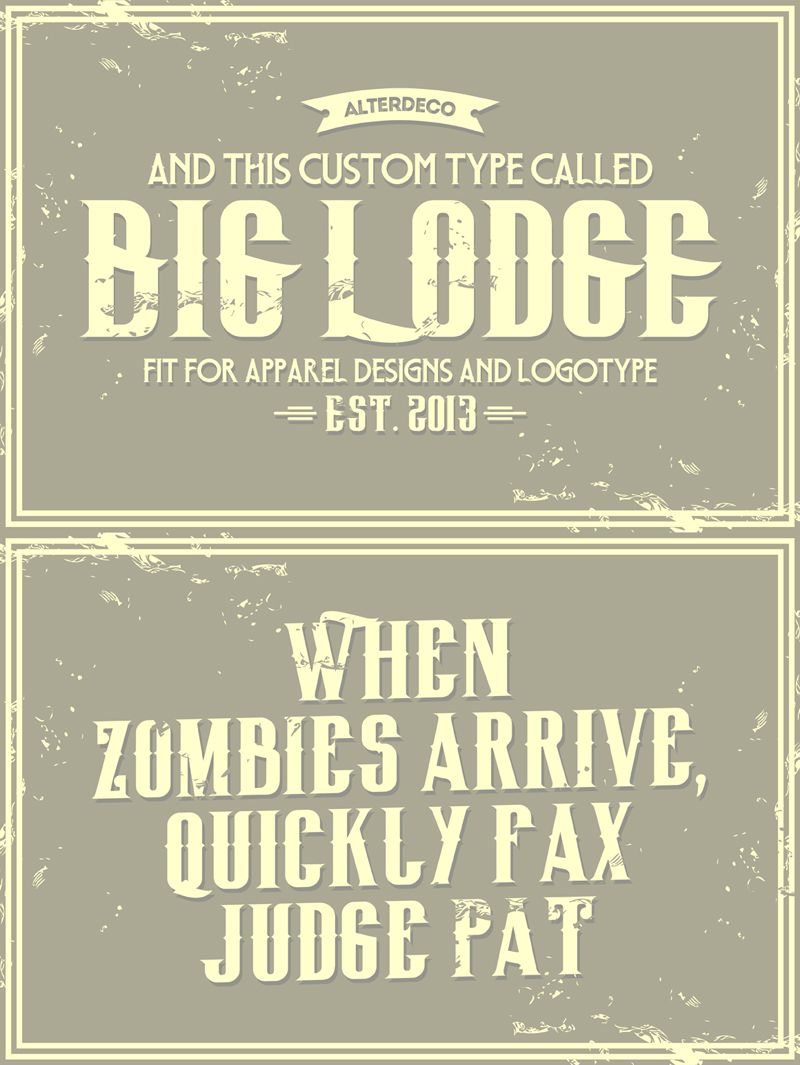
Preview and download Big Lodge Font. Created by Alterdeco Inc in Fancy Retro styles with Free for personal use license.
This is the free version of my "Big Lodge Type" font, wich is old fashioned type face, inspired by so many old and vintage typographys, retro tags, etc. please enjoy it and if you have any questions regarding this font, please contact me at helloadit@gmail.com - I am also available for custom logotype projects, and other graphic design related. This free version is available for personal use and commercial use (with permission), why don't you just go buy the full paid version here http://creativemarket.com/aditsaputra and find my other fonts there. |